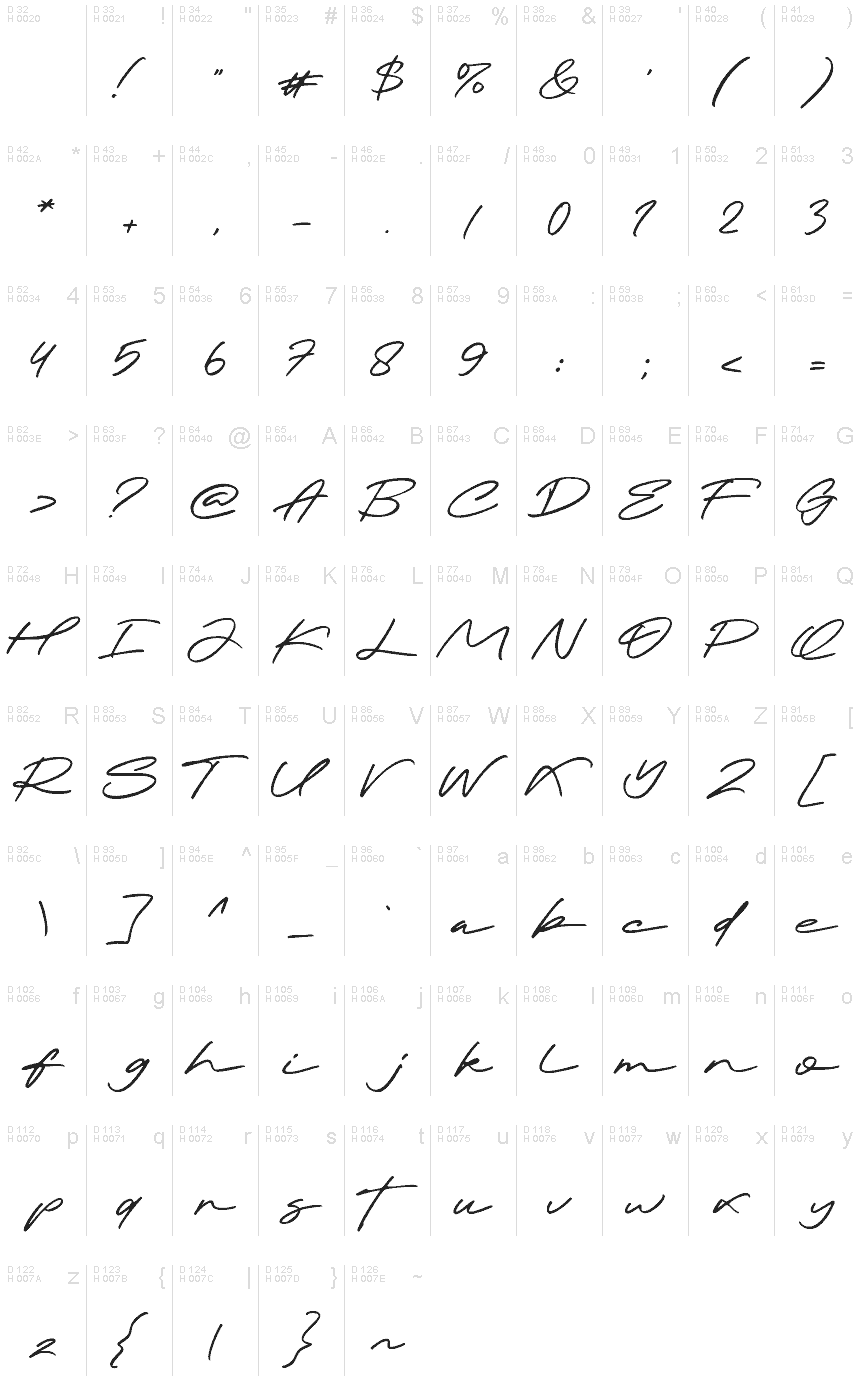
Quetine
Quetine font is a free handwritten font from Khurasan. It carries a uniquely casual yet visually elevating style that can be used on its own or as secondary text to support other design assets. Its flowing lines and overall outlook give it an advantage over other handwritten typefaces, allowing it to appear homely yet striking at the same time.
Use Quetine font when working on logotypes, branding designs, print projects, social media artwork, photo captions, and creative posts like Instagram. Create felicitations for wedding invites, save-the-date cards etc., icons and short web/mobiles UI titles/ subtitles among others.